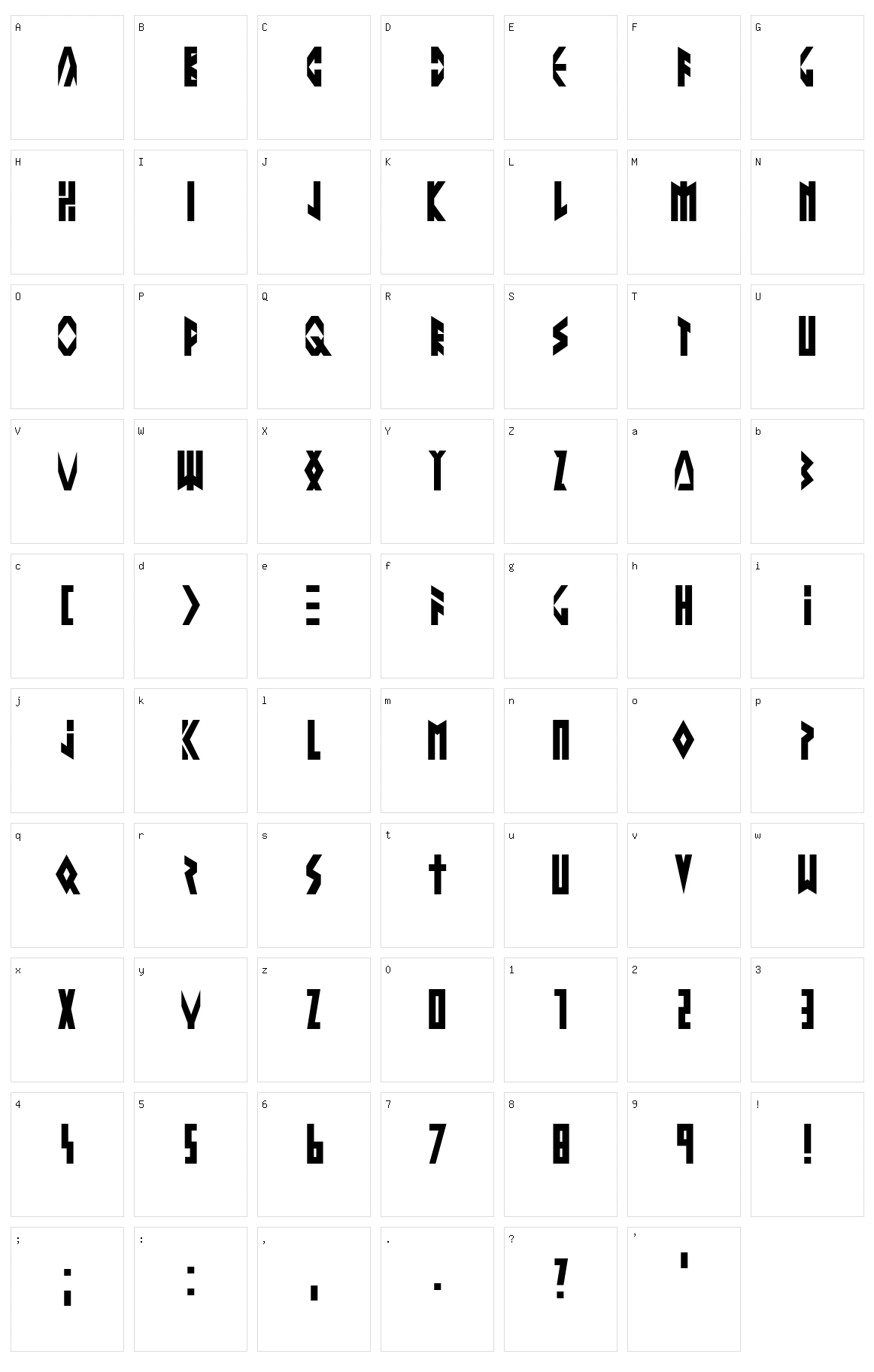
The free font Altering The Future is carefully designed by Roland Huse Design, showcasing a thoughtful balance of creativity and usability and belongs to the Techno font family. When you download the ZIP file, it contains only 59.2 KB of font files, making it lightweight and quick to download. Please review the license details below to understand permitted usage and distribution rights. If license information is not available, we recommend using this font for personal projects only or contacting the author directly for commercial usage permissions.
ÿþA L T E R I N G T H E F U T U R E i s a n a b s t r a c t f o n t i n s p i r e d b y r u n e s .
T h e h e i g h t o f t h e l e t t e r s i s f i x e d b u t L o w e r c a s e a n d u p p e r c a s e h a s d i f f e r e n t v e r s i o n s o f t h e c h a r a c t e r s w h a t y o u c a n p l a y w i t h .
T h e n a m e c a m e f r o m a t i t l e o f a s o n g f r o m o n e o f m y f a v o r i t e a l b u m : D e a t h - S p i r i t u a l H e a l i n g